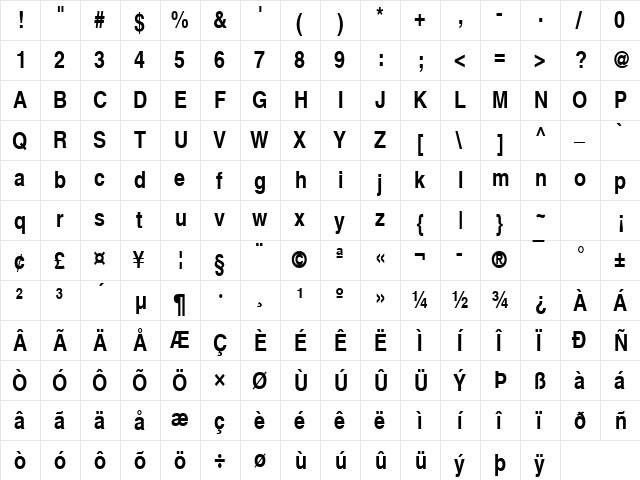
Nimbus Sans Becker LCon Bold
Design Context for Nimbus Sans Becker LCon Typeface
Nimbus Sans Becker LCon offers clean, dependable letterforms without strong stylistic allegiance, making it a practical choice for designers who need flexibility. Its bold stroke weight gives it real presence on the page.